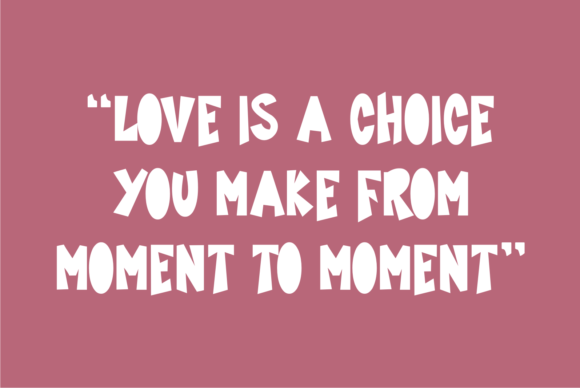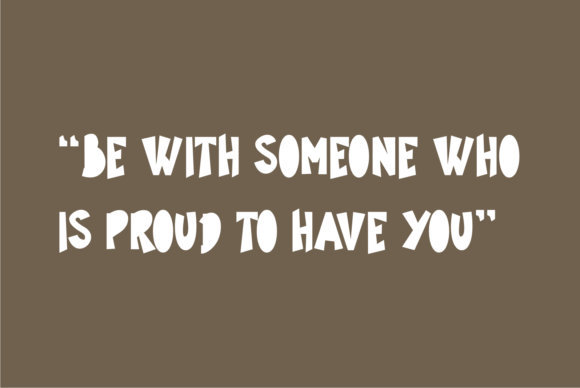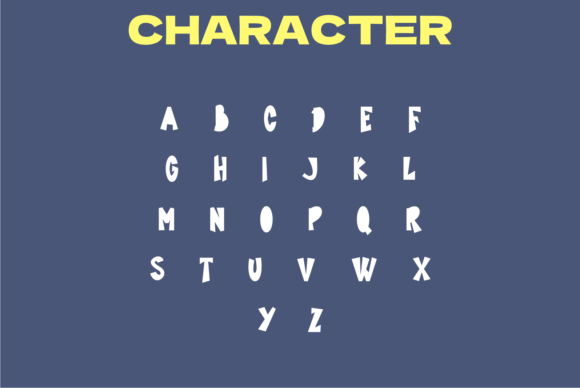
Introduction to Rutero Font
You’ve finally found the perfect design moment – a blank canvas, a spark of creativity, and the freedom to express yourself. But what if you could elevate your project to the next level with a single font? Enter Rutero Font, a game-changing display font that’s set to revolutionize the world of design.
This stunning font boasts a unique, thick-lettered aesthetic that’s guaranteed to make your creations stand out from the crowd. With its simple yet powerful design, Rutero Font is the perfect addition to any high-quality project. Whether you’re working on a creative project that requires a bold, eye-catching font or simply want to give your designs a professional touch, Rutero Font is the ideal design resource.
Key Features of Rutero Font
- High-quality design: Rutero Font is crafted with attention to detail, making it perfect for creative projects that demand a professional look.
- Transparent background: This feature allows for seamless integration with various design elements, making it ideal for backgrounds, overlays, and more.
- Unique characteristics: Rutero Font features a unique blend of modern and vintage elements, making it perfect for creative projects that require a distinctive look.
- Perfect for creative projects: Whether you’re working on a logo, branding, or any other design project, Rutero Font is an excellent choice due to its high-quality design and versatility.
Honest Review: Rutero Font
I recently had the chance to work with Rutero Font, and I’m excited to share my honest thoughts on this high-quality design resource.
What works well: ✨ The transparent background of Rutero Font is a game-changer for creative projects where you need to overlay text on images. The font’s clean and modern design makes it perfect for a wide range of applications, from logos to brochures.
- Transparent background for easy overlay
What could be improved: ⚠️ While Rutero Font is a great addition to any design toolkit, I did encounter some compatibility issues with certain font managers. Additionally, the font could benefit from more character sets and language support.
Overall, I’m impressed with Rutero Font and its potential to elevate creative projects. With a little more development, it could become a go-to design resource for designers and non-designers alike.
Rutero Font
Tips for Getting the Most Out of Rutero Font
To get the most out of the Rutero Font, be sure to use it on a transparent background to really make it pop. You can also experiment with different font sizes, colors, and combinations to create a unique and eye-catching design.
The Rutero Font is perfect for a variety of creative projects, including branding, marketing materials, and digital graphics. It’s also great for use in presentations, documents, and other written materials where a stylish and high-quality font is desired.